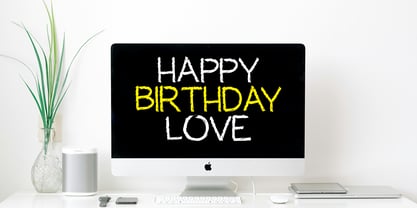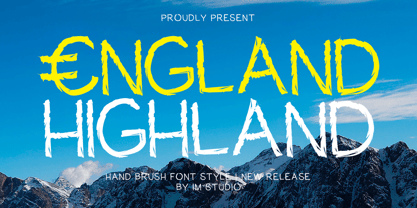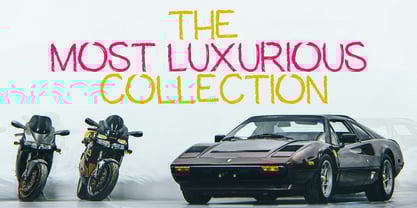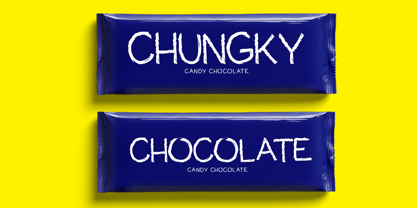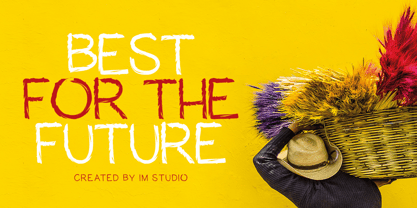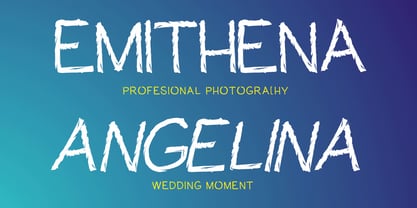
England Highland
by IM Studio
The England Highland Font Family was designed by Ikhsan Maulana and published by IM Studio. England Highland contains 2 styles and family package options. More about this family
England Highland embodies the spirit of spontaneous creativity with its bold, hand-painted strokes. This font embraces the raw energy of a brush on canvas, celebrating expressive, free-flowing lettering over perfect lines and polished edges. It evokes sun-drenched afternoons and a laid-back artistic vibe, bringing warmth and character to any design. With its textured edges and striking presence, England Highland is the ideal choice for projects that seek an authentic, handcrafted touch. Whether for surf-inspired graphics, casual branding, or dynamic typography, this font infuses every creation with vibrant personality and a hint of that unmistakable coastal charm.
Designers: Ikhsan Maulana
Foundry: IM Studio